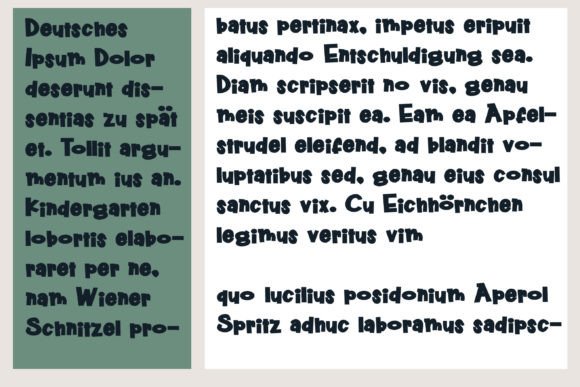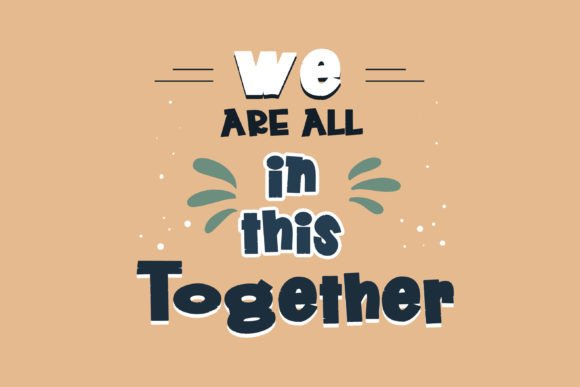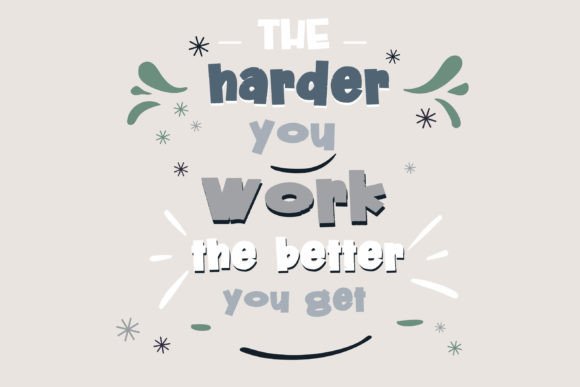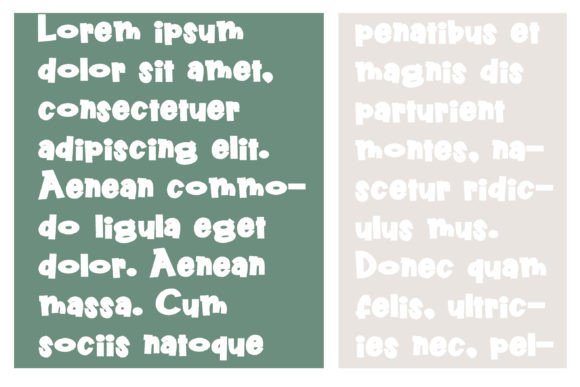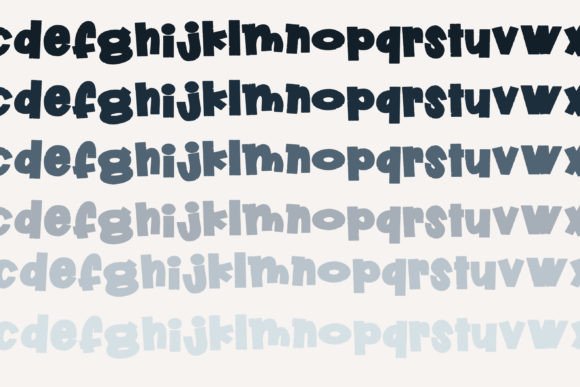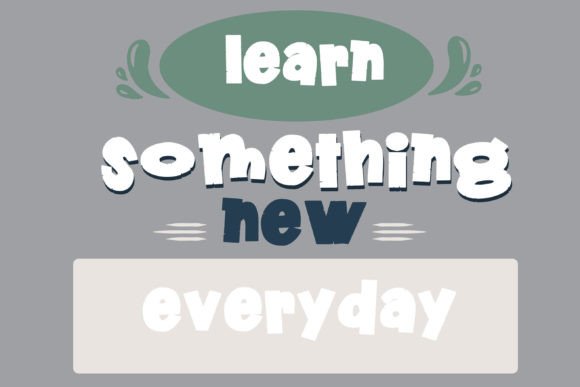
Introduction to Maizy Font
Have you ever stumbled upon a design that instantly sparks creativity and sets your imagination ablaze? For designers, it’s that feeling of ‘aha!’ when a perfect font comes along, elevating a project from ordinary to extraordinary. The Maizy Font is one such treasure that embodies the essence of fun and creativity, making it an invaluable asset for any design project.
Designed with a playful and dynamic touch, the Maizy Font exudes energy and enthusiasm, making it perfect for social media graphics, branding, and any project that requires a youthful exuberance. With its unique letterforms, this font is sure to add a touch of whimsy to your creative project, setting it apart from the rest.
Key Features of Maizy Font
- High-quality, customizable font designed for creative projects and design resources.
- Unique, hand-drawn design elements make Maizy Font perfect for adding a personal touch to creative projects.
- Perfect for use in graphic design, digital art, and other creative endeavors where a high-quality, unique font is desired.
Honest Review: Maizy Font
I recently came across the Maizy Font, and I must say it’s a great addition to any designer’s toolkit. As a design enthusiast, I’m always on the lookout for high-quality design resources to elevate my creative projects.
- ✨ High-quality typography: The Maizy Font boasts a clean and modern design that’s perfect for a wide range of applications.
- ✨ Versatility: This font is highly versatile and can be used in various contexts, from headings to body text.
- ⚠️ Limited font styles: While the Maizy Font is great for general use, it’s limited in terms of font styles and weights.
Overall, I’m impressed with the Maizy Font’s potential and would recommend it to designers looking for a high-quality, free download for their creative projects.